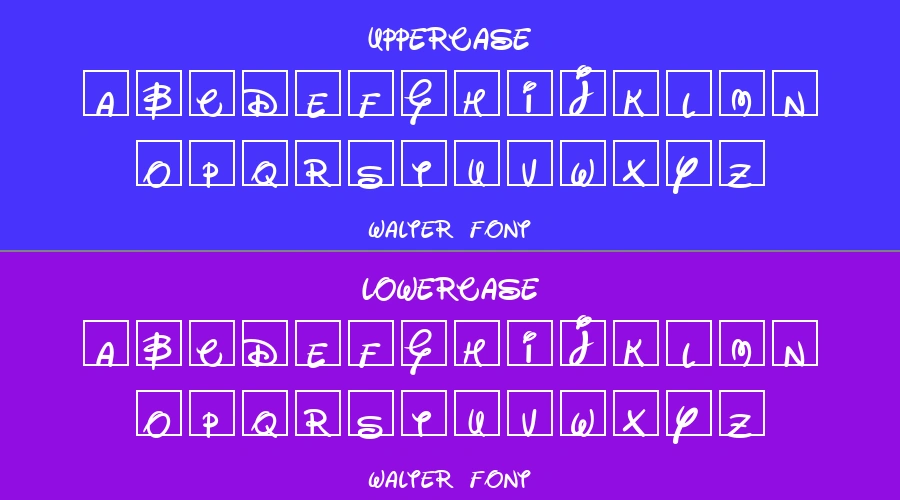
About Walter Font
Walter Font stands out for its distinctive combination of impactful forms and classic beauty. Ideal for exhibition design, it provides the authenticity and creative potential that professional projects demand. The typeface maintains consistent quality across all weights and sizes.
Key features include refined balanced tension and practical contextual alternates, enhancing typographic expression. In digital banners applications, Walter Font demonstrates exceptional reproduction fidelity. The joint detail and creative expression contribute to its distinctive character and professional appeal.